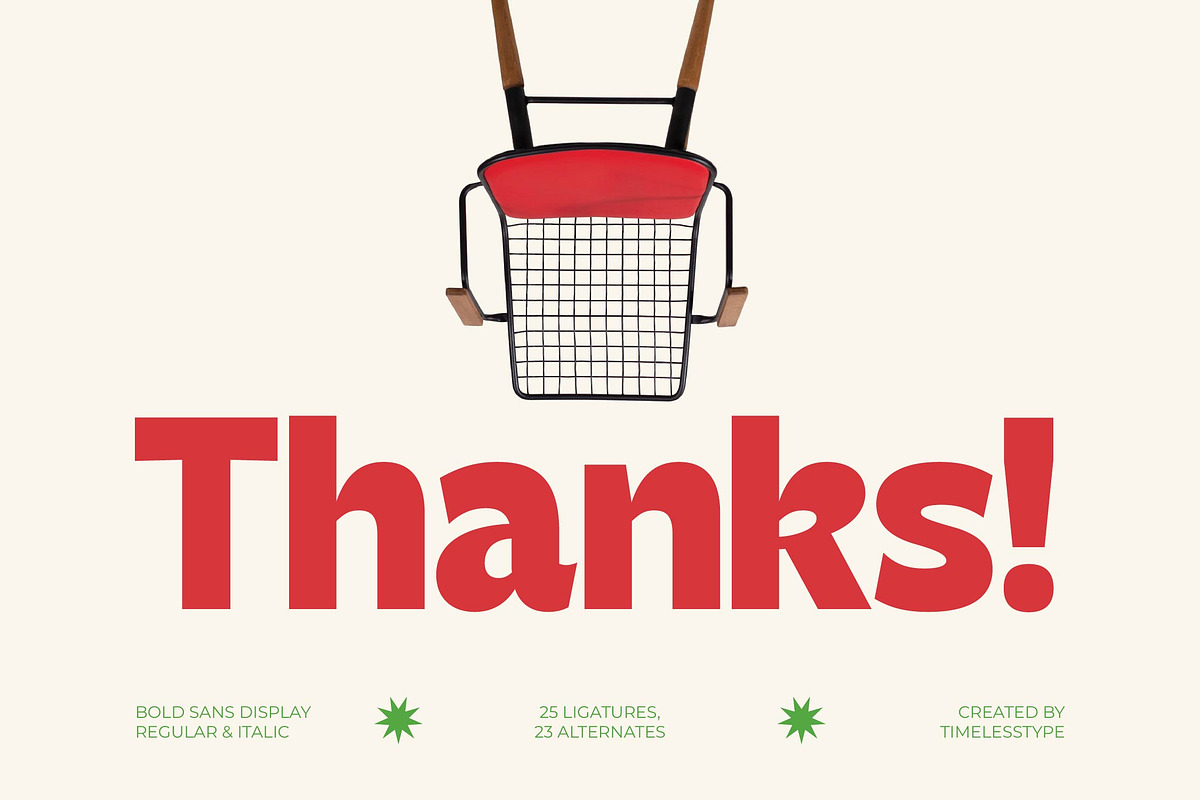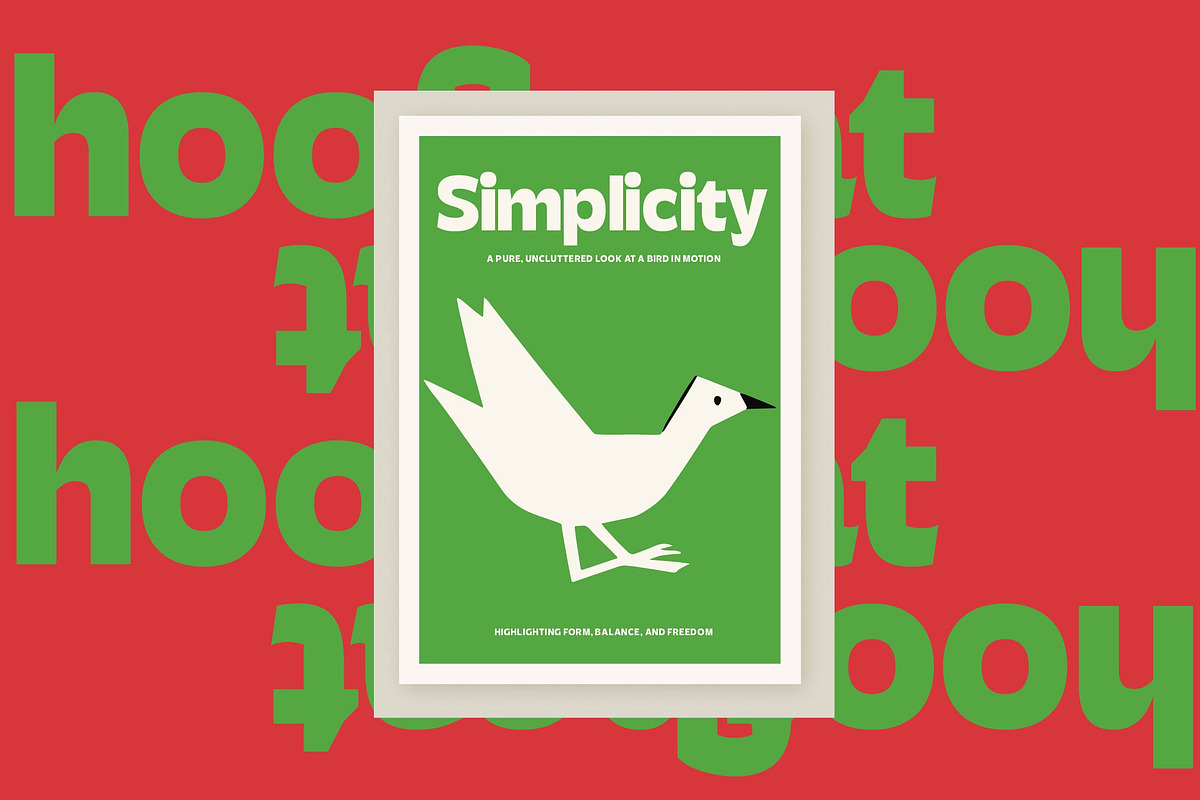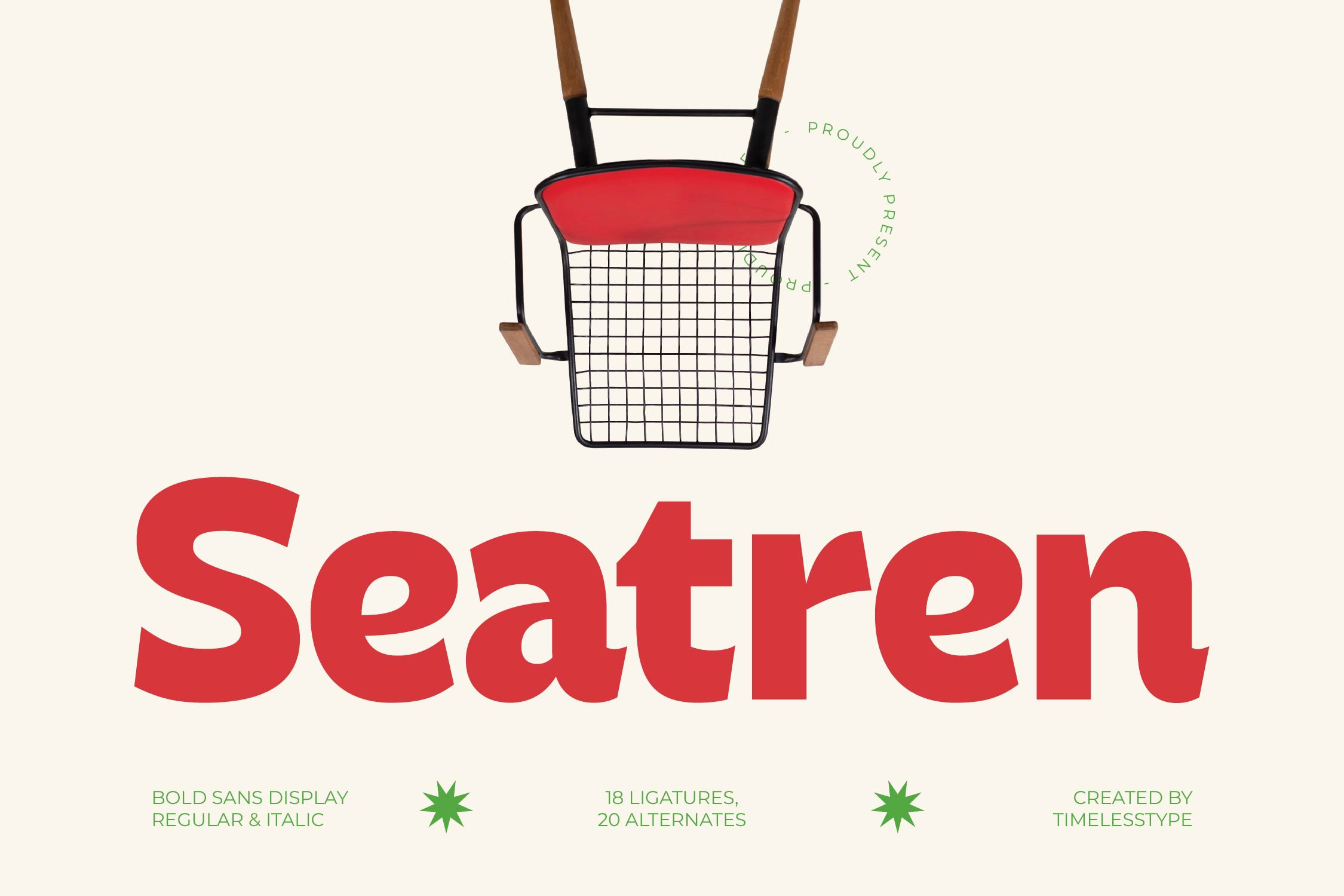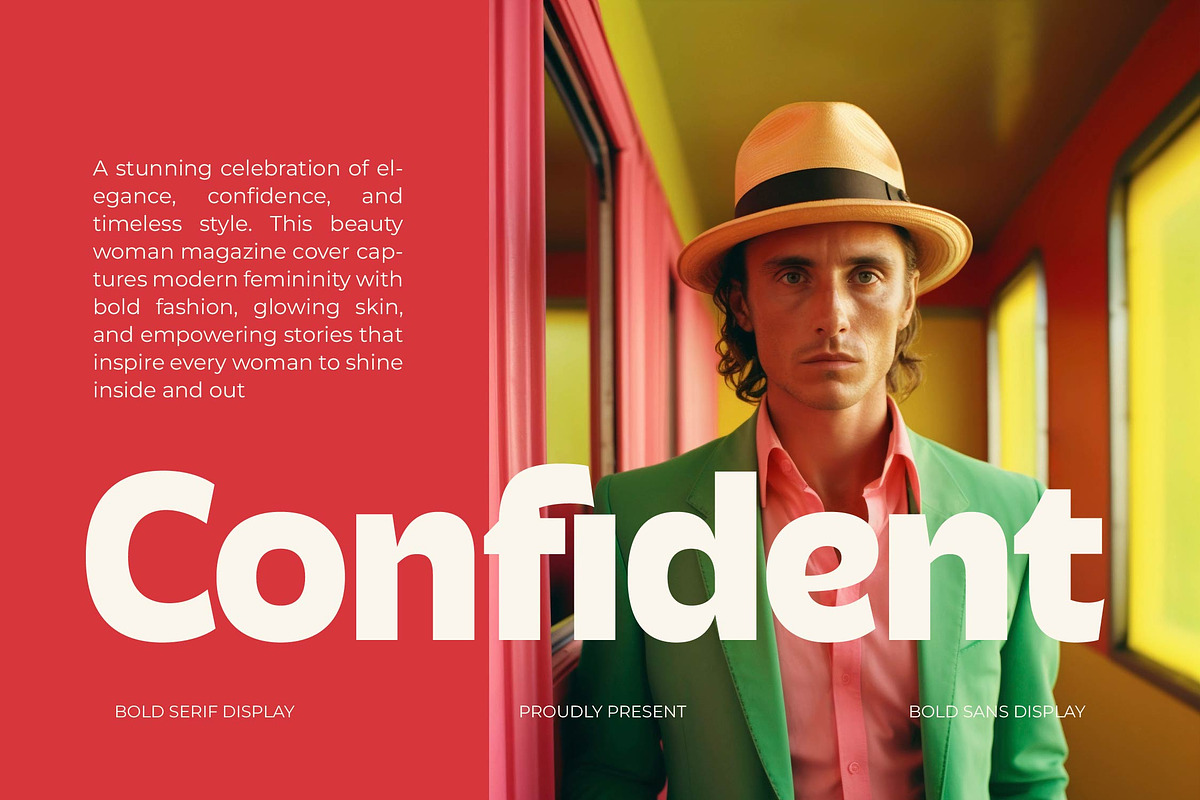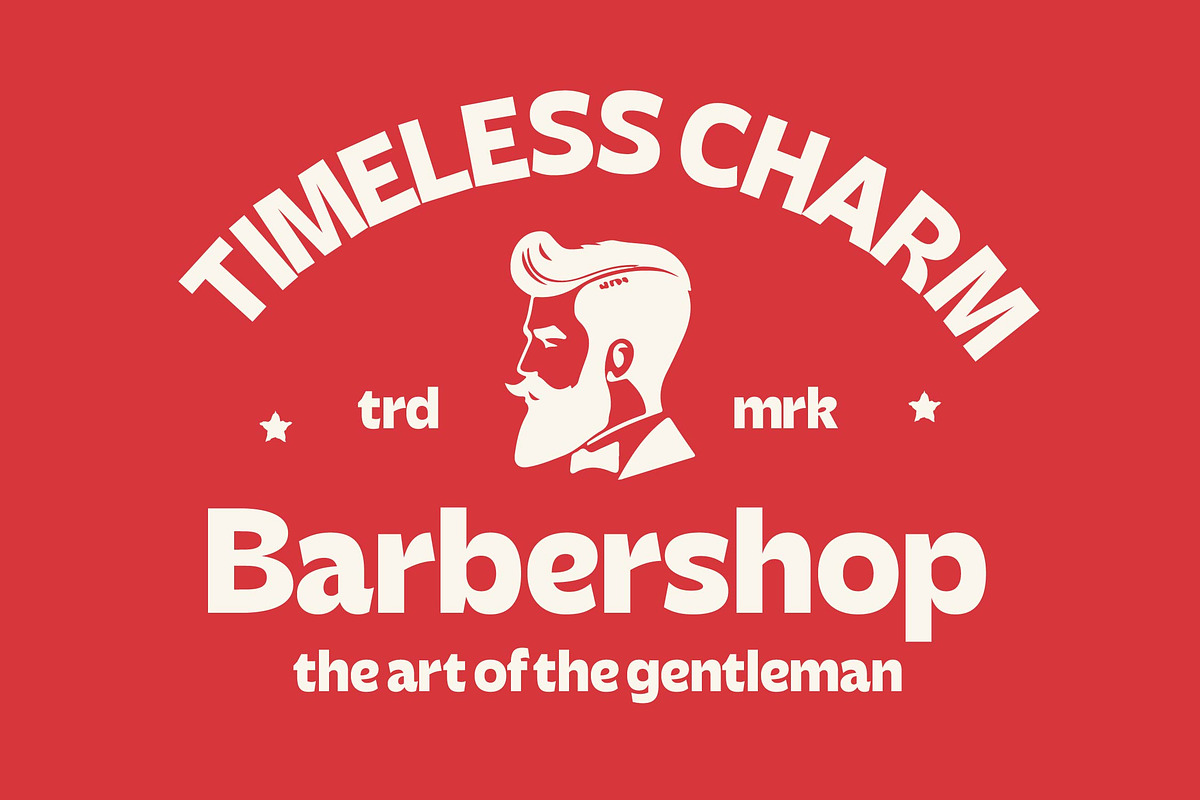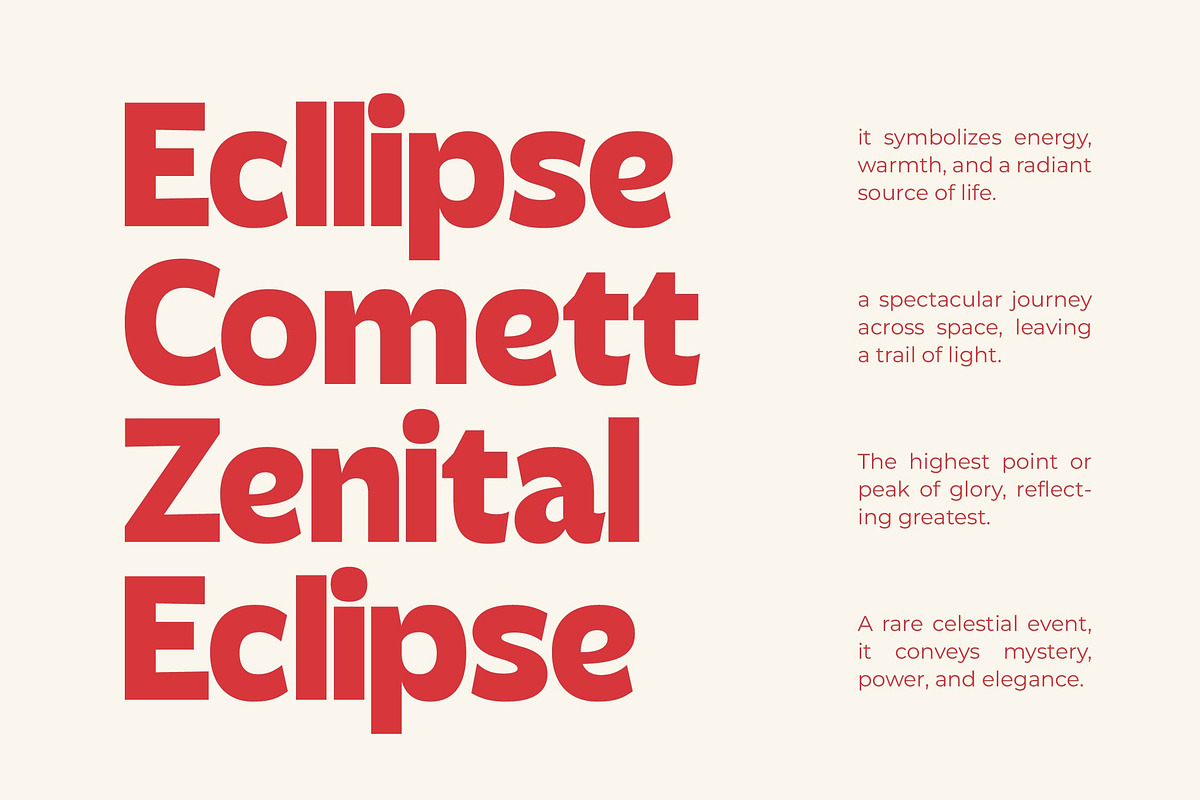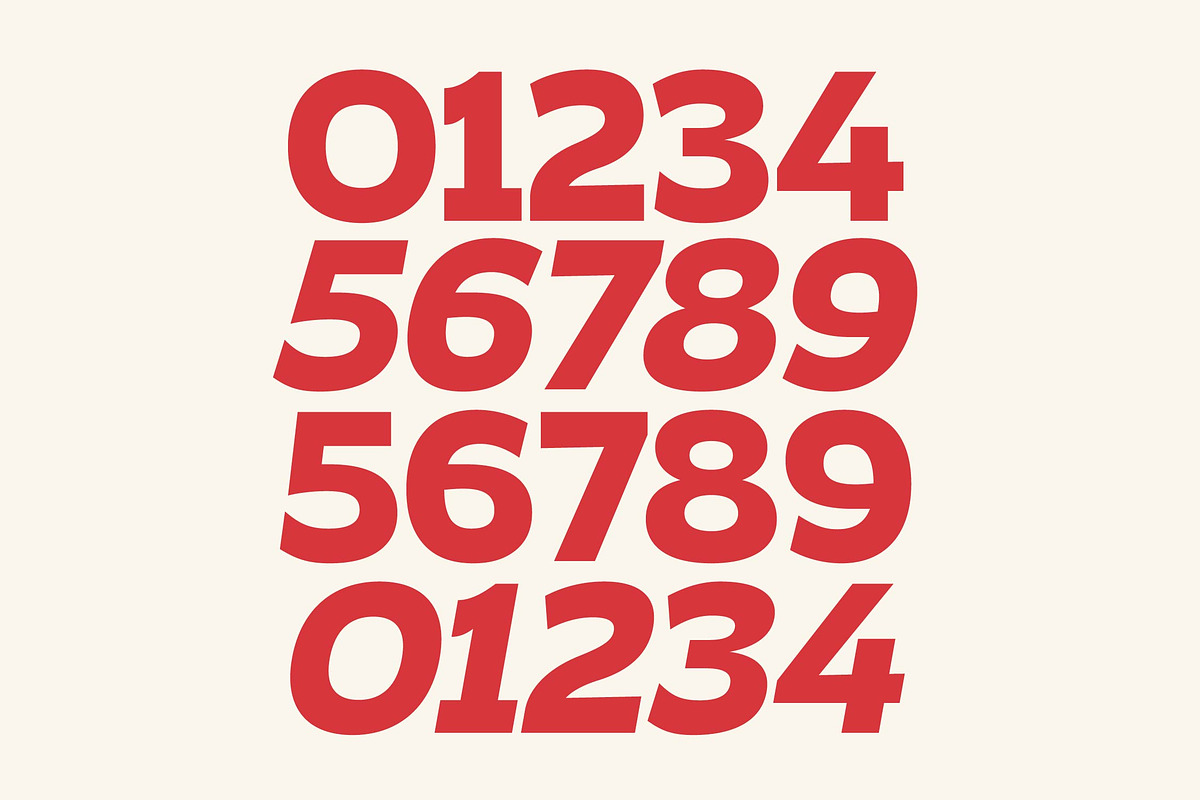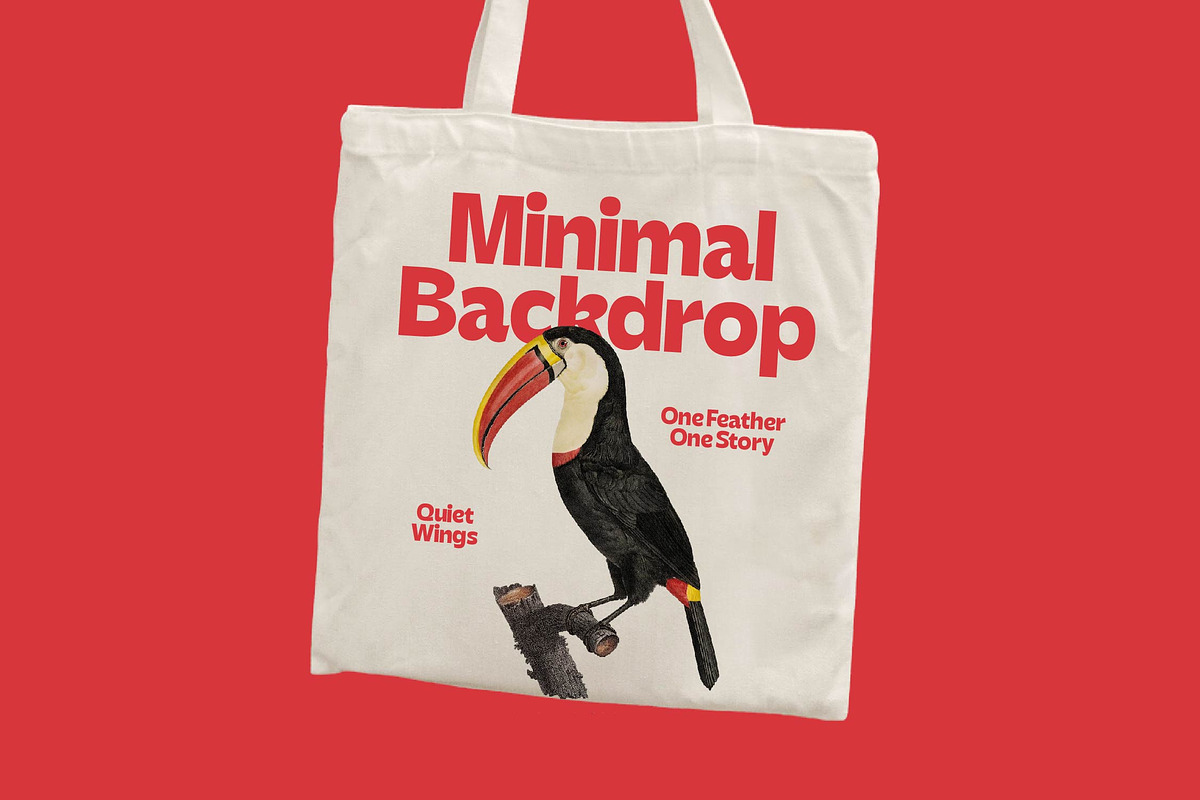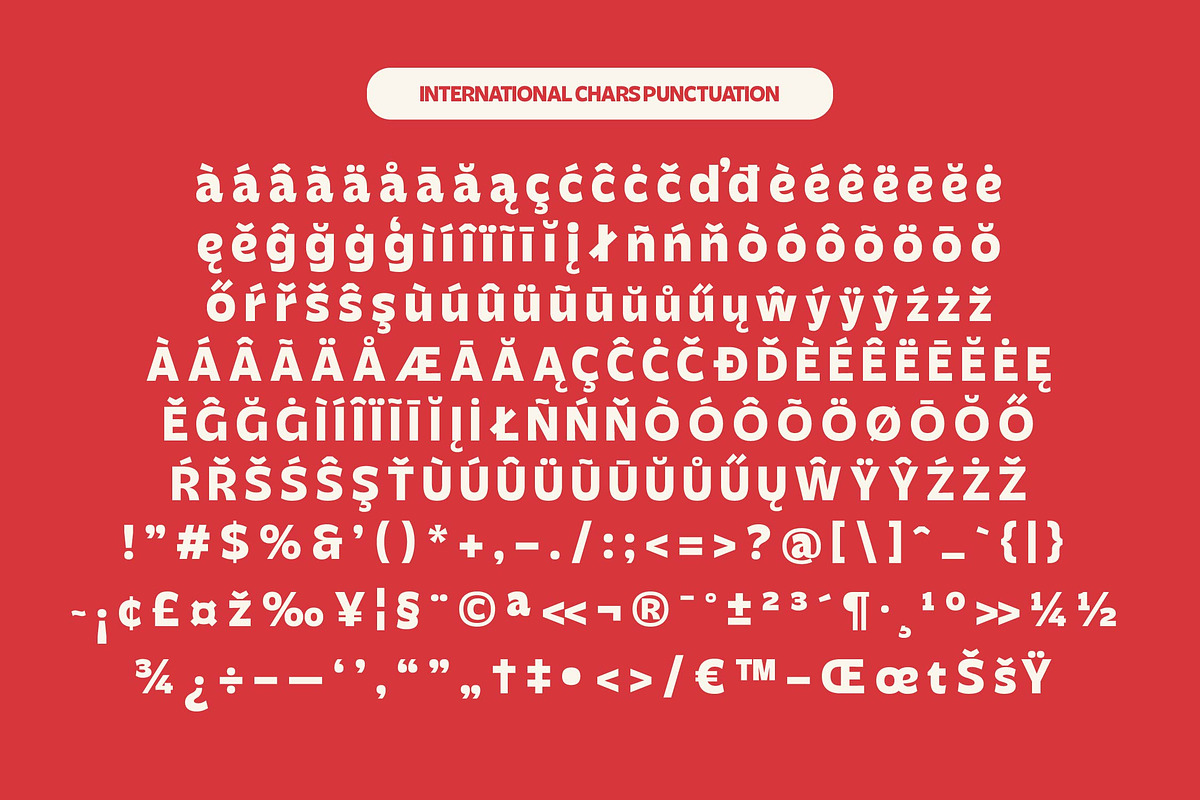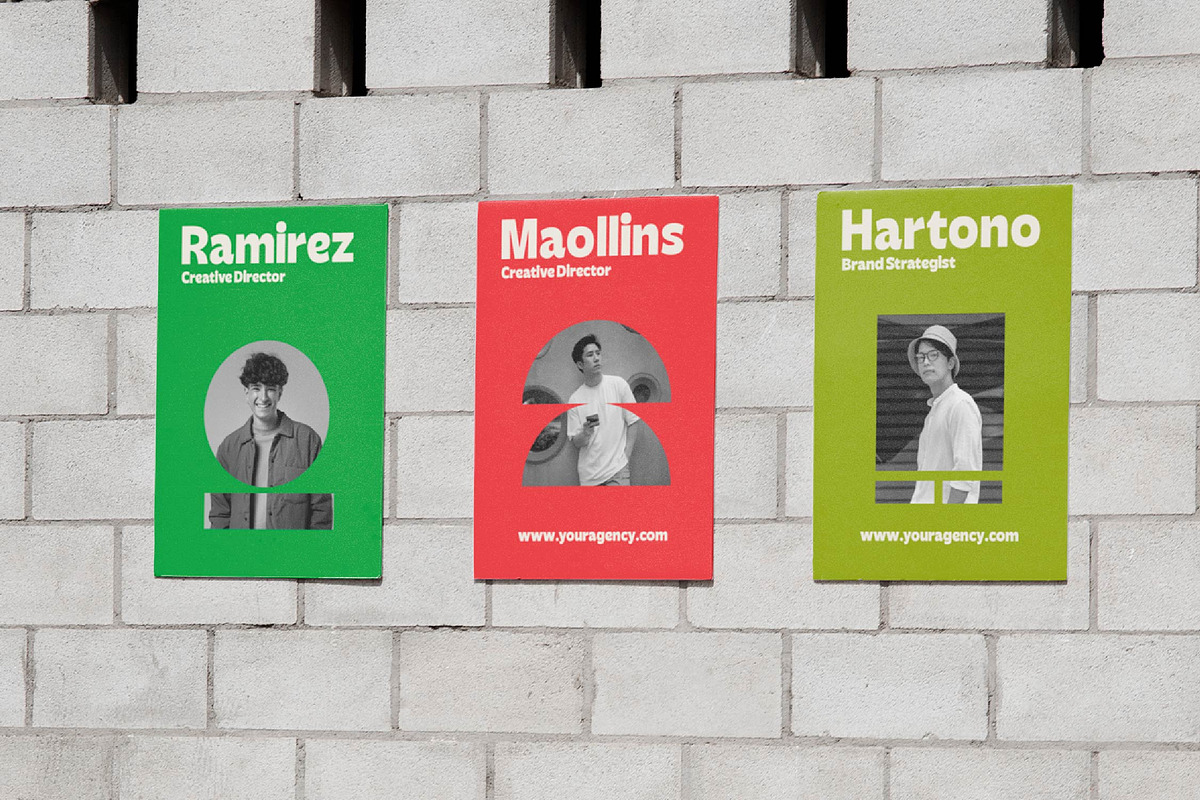
Seatren Bold Sans Display Font
Seatren is a vibrant masterclass in bold expression, designed to command attention with its soulful curves and unapologetic presence. It transforms every word into a visual statement that feels both nostalgic and refreshingly new.
Inspired by the sleek lines of mid-century furniture and the bold graphic language of the 1970s, this typeface captures a timeless aesthetic. It evokes a sense of curated cool, pulling from a heritage of design where form and function dance in perfect harmony.
This modern serif display alternative offers a unique twist on luxury typography, providing a high-contrast serif sensibility within a clean, bold sans-serif framework. As a powerful editorial font, it delivers a massive branding impact for designers who aren't afraid to stand out.
Riding the wave of the current modern serif trend, this typeface bridges the gap between classic structure and contemporary flair. It is the perfect choice for creators seeking editorial display fonts that offer character-driven typography to elevate their creative portfolio.
From high-impact logo design to cohesive visual branding, Seatren excels across multiple digital and print platforms. Its versatility makes it a go-to for editorial layouts, custom packaging, sophisticated wedding stationery, and cutting-edge fashion lookbooks.
This comprehensive package includes a wealth of ligatures and alternates to provide endless creative combinations for your next project. With full support for multilingual layouts and a vast array of international characters, it ensures your message reaches a global audience with swashes and style.
Numerals
Punctuations (OpenType Standard)
Accents (Multilingual Characters)
Ligatures and Alternative Style Stylistic Set